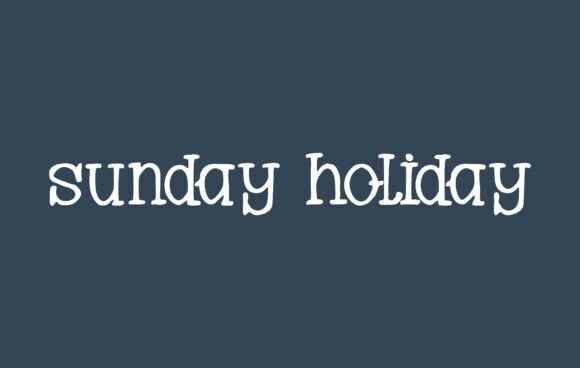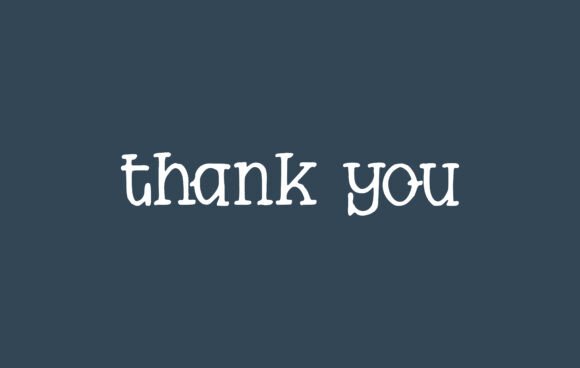
Doodads Font: Elevate Your Designs with a Romantic Handwritten Touch
In the world of typography, few fonts manage to capture the essence of romance and whimsy as effectively as Doodads Font. This authentic handwritten font is designed to infuse your creative projects with a personal touch, making it an ideal choice for designers and crafters looking to add a unique flair to their work. With its elegant strokes and legible design, Doodads Font is poised to become your go-to typeface for a wide range of applications.
The Charm of Doodads Font
Doodads Font stands out in the digital typography landscape due to its distinctive romantic touch. Each letter is crafted with care, boasting a fluidity that mimics handwriting. This characteristic makes it exceptionally versatile, suitable for both titles and body text. Whether you’re working on a magazine headline, a social media post, a brand identity, or a wedding invitation, Doodads Font brings a level of sophistication and charm that’s hard to match.
One of the key advantages of Doodads Font is its incredible versatility. Its design ensures that it can be used across various platforms and for multiple purposes. Here are some of the areas where Doodads Font truly shines:
- Magazine Headlines: Grab the attention of your readers with stylish and eye-catching headlines that exude elegance.
- Social Media: Elevate your social media presence with posts that stand out, thanks to the unique and engaging typography.
- Branding: Create a memorable brand identity with a font that communicates warmth and sophistication.
- Wedding Invitations: Add a touch of romance and personalization to your wedding invitations, making them truly unforgettable.
- Cards: Whether it’s a birthday, anniversary, or any other occasion, Doodads Font can help you create cards that are both heartfelt and visually appealing.
Why Choose Doodads Font?
There are several reasons why Doodads Font should be your top choice for your typography needs:
- Legibility: Despite its handwritten nature, Doodads Font is remarkably legible, making it suitable for both short titles and longer body texts.
- Elegance: It brings a level of elegance and sophistication to your designs, helping you to create a lasting impression.
- Authenticity: The font’s authentic handwritten look adds a personal touch to your projects, setting them apart from more generic typefaces.
- Creativity: With Doodads Font, you can unlock new creative possibilities, transforming your ideas into visually stunning realities.
Tips for Using Doodads Font
To make the most out of Doodads Font, consider the following tips:
- Mix and Match: Don’t be afraid to experiment by combining Doodads Font with other typefaces to create interesting contrasts.
- Adjust Size and Color: Play with different sizes and colors to add depth and emphasis to your designs.
- Use it Sparingly: While Doodads Font is beautiful, using it sparingly can make it more impactful. Consider using it for key messages or highlights.
Doodads Font is more than just a typeface; it’s a tool for creativity, a means to add a personal and romantic touch to your designs. Its versatility, elegance, and legibility make it an excellent choice for a wide range of projects. Whether you’re a professional designer or a crafter, Doodads Font has the potential to elevate your work to new heights. So, why settle for ordinary when you can create something extraordinary with Doodads Font?